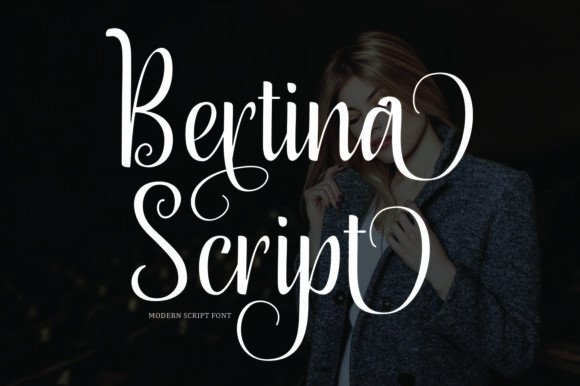
Bertina Script: The Modern Script Font for a Natural Feel
A Typeface with Personality and Flow
When you’re searching for a creative font that brings a human touch to digital and print work, you quickly discover that not all script fonts are created equal. Many fall into the trap of looking overly formal or, conversely, too messy to be legible. Bertina Script strikes a delicate balance. It is a modern script font characterized by its distinct irregular baseline, which gives it a genuine, handwritten aesthetic. This isn't the rigid, perfect calligraphy you might find on a certificate from the 1990s; this is a typeface that feels alive and contemporary.
The visual appeal of Bertina Script lies in its fluidity. The characters connect in a way that mimics natural handwriting, avoiding the robotic repetition often seen in lower-quality design assets. The irregular baseline is a specific design choice that adds rhythm to your text. It creates a sense of movement that guides the eye along the page, making it an excellent choice for projects where you want to evoke emotion, warmth, or intimacy. For designers and entrepreneurs, this personality is invaluable. It allows you to inject a brand identity with a voice that feels approachable and authentic rather than corporate and distant.
Practical Applications: From Wedding Invitations to Brand Identity
Understanding where Bertina Script fits into your creative workflow is key to getting the most out of this typeface. While it is technically a display font, its versatility allows it to shine across a surprisingly wide range of applications. If you are a crafter or a designer specializing in wedding invitations, this font is likely to become a staple in your toolkit. The flowing nature of the letterforms mimics the elegance of hand-lettered stationery, making it perfect for save-the-dates, thank you cards, and envelopes.
However, the utility of Bertina Script extends far beyond stationery. Consider the needs of a small business owner or a marketer working on brand identity. In logo design, a font needs to be memorable. The unique swirls and loops of Bertina Script can help a boutique coffee shop, a beauty salon, or a lifestyle blog stand out. Because it is a premium font, it avoids the "generic" look of system fonts, ensuring that the branding feels bespoke and professional.
For those involved in packaging design, the irregular baseline helps products look handmade and artisanal. It suggests that care went into the creation of the product inside. Similarly, in editorial design and publishing, Bertina Script works beautifully for pull quotes, chapter titles, or magazine headers. It breaks up the monotony of standard serif font or sans serif font blocks, adding a visual pause that captures the reader's attention.
Mastering Typography: Readability, Pairings, and Hierarchy
One of the most common mistakes creatives make with script fonts is sacrificing readability for style. While Bertina Script is highly legible for a handwritten font, it requires a strategic approach to typography. You should avoid using it for long paragraphs of body copy. Its strength lies in headlines, sub-headers, and short bursts of text. When used for body text, the irregular baseline can become tiresome to the eye over long reading sessions. Instead, use it to create a strong visual hierarchy. Let Bertina Script grab attention at the top of the page, and then transition to a clean, neutral typeface for the details.
This brings us to font pairing—a critical skill in modern typography. Because Bertina Script has such a distinct personality, it pairs best with something stable and understated. A geometric sans serif font often provides the perfect contrast. The clean, straight lines of the sans serif will anchor the fluid, organic movement of the script, preventing the layout from looking chaotic. Alternatively, pairing it with a classic serif font can create a look that feels traditional yet fresh, ideal for high-end branding or editorial layouts.
When evaluating this typeface for your project, consider the "mood match." Does your brand speak with a loud, energetic voice, or a soft, whispering one? Bertina Script leans towards the intimate and personal. It works exceptionally well for social media graphics where you need to convey a message quickly and emotionally. Think of Instagram stories or Pinterest pins featuring inspirational quotes—the irregular baseline adds the necessary flair to stop a user from scrolling.
Technical Considerations and Licensing for Professionals
For the entrepreneur or agency owner, the technical specifications of a font are just as important as its looks. As a commercial font, Bertina Script comes with specific licensing requirements that allow you to use it legally across client work, merchandise, and digital platforms. This is a significant advantage over free fonts found on the internet, which often carry hidden legal risks or lack the necessary character sets for professional use.
When you integrate Bertina Script into your web design or digital assets, ensure that you test it across different devices and browsers. While modern web fonts are generally robust, the fine swashes of a script font can sometimes render differently on low-resolution screens. Always check the x-height and legibility at the specific pixel size you intend to use.